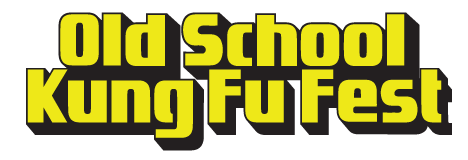
Font name: | Golden Dragon |
Author: | Alberto de la Cruz |
An open-source display font family based on the classic poster from 'Enter the Dragon', created in three styles: Solid, Outline and Shadow. |